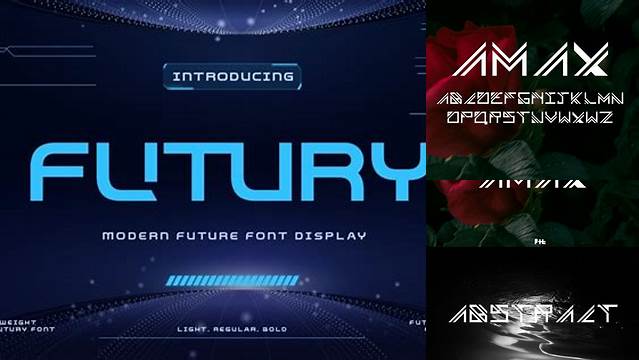
AMAX: Free Futuristic Font For Amazing Designs
Hey everyone! Today, we're diving headfirst into the world of typography with something super cool: the AMAX font. This isn't your grandma's Times New Roman, folks. AMAX is a free futuristic display font that's all about sleek lines, modern vibes, and a touch of the future. If you're looking to give your designs a serious upgrade, whether it's for a website, a poster, or even a video game, AMAX is definitely worth checking out. Let's get started!
1. Exploring the Core Aesthetics of AMAX Font
So, what exactly makes AMAX tick? Well, at its heart, it's a futuristic display font. Think clean, geometric shapes and a sense of forward-thinking design. It's got that 'look at me' quality, perfect for headlines, logos, and anything that needs to grab attention. The letterforms themselves are often bold and striking, with a focus on simplicity and readability. You'll notice that AMAX often avoids overly ornate details, preferring instead to let its unique character shapes speak for themselves. This minimalist approach is a key feature of many futuristic designs, creating a sense of sophistication and technological advancement. The design aims to evoke a sense of speed, innovation, and progress. You might imagine it gracing the screens of a high-tech spaceship or the sleek interface of a cutting-edge gadget. The spaces between letters and words are carefully considered, ensuring that the overall look is balanced and visually appealing. This is particularly important for display fonts, where legibility is paramount, even at large sizes. AMAX font is designed to work well in a variety of contexts. You can use it to create a futuristic website that's clean and intuitive. You can also use it to create attention-grabbing posters for events or products. It's the kind of font that can easily adapt to different design projects, making it a versatile choice for any creative person. The font's ability to convey a sense of the future while remaining easy to read is a great example of how to merge aesthetics with usability. The goal is always to make your design stand out, while at the same time ensuring that it is easy to understand. AMAX achieves this balance perfectly, making it a top choice for those seeking a futuristic feel.
2. Key Features and Characteristics of the AMAX Font
Let's break down some of the nitty-gritty details. AMAX, like many display fonts, usually comes with a limited character set. But don't worry, it's usually more than enough for headlines and short blocks of text. It will include all the essential letters, numbers, and punctuation marks, carefully crafted to fit the font's unique style. You can expect to see variations in weight, allowing you to choose between a lighter, more subtle look, and a heavier, bolder statement. These variations can give your designs more depth. Often, designers will include alternate characters, which are different versions of the same letter, giving you even more creative control. The kerning, or spacing between letters, is generally well-optimized for display purposes. This ensures that words flow smoothly and look balanced, even when the font is used at large sizes. AMAX, like many fonts of its type, is designed to make an impact. The design is meant to be easy to read while also standing out. It has been carefully designed to work well in different contexts. Whether you're designing a website, creating a poster, or working on a video game, this font can adapt. The inclusion of different weights and styles allows for flexibility. The inclusion of alternate characters gives you more creative freedom. Kerning is a crucial factor in the design of a font. Designers take great care to make sure that words are easy to read. AMAX is designed with these elements in mind. The result is a font that is easy to use and makes your designs look better.
3. Ideal Usage Scenarios for the Free AMAX Font
Where does AMAX shine? Think bold headlines on websites and blogs. It's perfect for making your content pop. Logos are another great use case. The unique style can help your brand stand out. Think futuristic branding for tech companies, gaming studios, or any business wanting to project an innovative image. Movie posters and promotional materials benefit greatly from the font's aesthetic. It instantly grabs attention. In the gaming world, it's the font that appears on game titles, user interfaces, and promotional art, perfectly complementing the futuristic themes that are common in this industry. For digital art, it can elevate your creations to another level. Whether you're creating digital art, animations, or visual effects, the futuristic look of AMAX can add depth and style. Its clean lines and modern feel work well in various digital art projects. The design also works great in presentations. If you need to make a presentation that needs to grab the attention of your audience, this font is ideal. The font is readable, even when displayed on a large screen. The futuristic look can also help make your presentation more visually appealing. The font is also great for social media graphics, creating eye-catching posts for your social media channels. The distinctiveness of the font helps to ensure that your social media graphics make a statement.
4. Designing with AMAX: Best Practices and Tips
Let's talk about making the most of AMAX. First things first, keep it simple. This font is all about making a statement, so don't clutter it with too much additional design. Focus on clean layouts, plenty of negative space, and let the font do the heavy lifting. Balance the use of AMAX with a more subdued font for body text. This is crucial for readability. Pair AMAX with a simple, easy-to-read font, so that your audience can focus on the text. Consider the background. The font's style makes it work great on various backgrounds. Use high-contrast color combinations. AMAX is designed to be seen. Black text on a white background, or vice versa, is a classic combo. But don't be afraid to experiment with bold colors. Consider the size. Because AMAX is made for displays, you will want to take the size of the font into consideration. The font is designed to stand out, so make sure it is big enough to grab the attention of your audience. Think about the overall tone. AMAX is perfect for futuristic and modern themes. If you are trying to make your design appeal to a younger audience, then consider using AMAX. Ensure that the font complements your overall design theme. This is important to ensuring that you are conveying the message you want to send to your audience. Don't overuse it. AMAX is best used sparingly. It can be a great choice for headlines, titles, or logos. However, it is probably not a good choice for body text. By following these best practices, you can make the most of the AMAX font, and ensure that your designs stand out.
5. AMAX Font in Web Design: Creating Futuristic Interfaces
AMAX is a great choice for web designers looking to create a futuristic look. It is perfectly suited for designing websites and creating cutting-edge user interfaces. When using the font for web design, it is important to ensure that your website design is clean and minimalist. Make sure there is lots of white space. Avoid cluttering the website with too much information or complex designs. When you are creating your website, use AMAX for headlines and key text elements. This helps them stand out from the other elements of the website. The font is perfectly suited for creating logos and branding elements, such as buttons and navigation menus. In order to make sure that your website design is effective, you will need to optimize the font for web use. Use the web font format to ensure that the font renders correctly across different browsers. Ensure that the font size is appropriate for different screen sizes. The size of the font needs to be large enough to be readable. Consider the website's color scheme when you choose the font. The font is available in a variety of styles, and you want to make sure that the color scheme complements the font. Consider the overall user experience when implementing the font. The user experience should be top priority. The website should be easy to navigate. The font should be easy to read, and the website should be aesthetically pleasing. This allows your visitors to focus on the content. AMAX is a fantastic choice if you're looking to give your website a futuristic edge. By using it correctly, you can create a site that's both visually appealing and easy to use.
6. AMAX Font for Branding: Crafting a Modern Identity
If you are looking to build a brand, AMAX is perfect for it. Because AMAX is a futuristic-style font, it is perfect for logos, and can help a brand stand out from the competition. When creating a brand, choose a logo that reflects your brand's values and mission. AMAX is especially good for tech companies, game developers, and brands targeting a younger audience. Use the font in a variety of ways. Apply the font across all your brand's visual assets. Consistency is key to brand recognition. You can use it for website design, social media graphics, and even printed materials. Choose a color palette that complements the font and your brand's aesthetic. Consider using high-contrast colors to make your branding elements stand out. The font is well-suited for making a strong impression. Develop guidelines for the use of the font. Specify the size, weight, and style. This will help you keep the brand consistent. Keep it modern. AMAX is great for modern brands, so consider using it to create a modern brand. Make sure your brand has a distinct look, one that resonates with your target audience. Consistency is important in the branding world. Using a consistent style across all your visual assets helps to build brand recognition. By following these tips, you can make your brand stand out. AMAX is a strong font choice for brands that want to project a futuristic and modern identity.
7. AMAX in Graphic Design: Posters, Flyers, and More
For graphic designers, AMAX is a fantastic asset. The font helps bring your designs to life by creating unique and eye-catching posters. When designing posters and flyers with the font, begin by selecting a theme that aligns with your message. The font works great with themes related to technology, innovation, and futurism. Select a suitable color palette. High-contrast colors and bold combinations can help your designs stand out. Make sure you use the font in the right size. The font is best used in larger sizes, to make sure your audience can read it. Create a visual hierarchy. Use the font to highlight the most important information. Balance the design. When designing posters and flyers, you need to keep it simple. Make sure the design is not too cluttered. AMAX works best when paired with complementary fonts and elements. You can combine it with a simple sans-serif font for body text to improve readability. The font is suitable for a variety of applications. It is perfect for marketing materials, such as event announcements or product promotions. Consider the target audience. The font can be a useful tool, and can effectively communicate your message to your target audience. You can use it to create a design that will generate interest and engagement. The font helps you create an engaging visual experience. By incorporating AMAX into your designs, you can craft visually compelling posters and flyers that get noticed.
8. AMAX for Game Development: UI/UX and Titles
If you're a game developer, AMAX can seriously level up your game's look. It's perfect for creating unique game interfaces. The font can also add a futuristic aesthetic. First, think about the game's genre and overall theme. AMAX is a good fit for sci-fi, cyberpunk, and futuristic games. The font works perfectly for titles. The font can immediately grab players' attention. When designing a user interface, use the font for key elements like health bars, score displays, and menu options. AMAX helps maintain consistency across the game. In terms of game development, you can create a fully immersive experience. The font's bold, modern look can really create a unique visual language. Optimize the font for various screen sizes. It is essential that the font is readable on all devices. Use high contrast to make sure that the text is easily readable. Consider the overall tone of the game. AMAX can help convey a sense of technological advancement. Use the font strategically. Using the font for key titles and UI elements is a good strategy, and it can enhance the game's visual appeal. By integrating AMAX into your game's design, you can create a unique and engaging experience for your players.